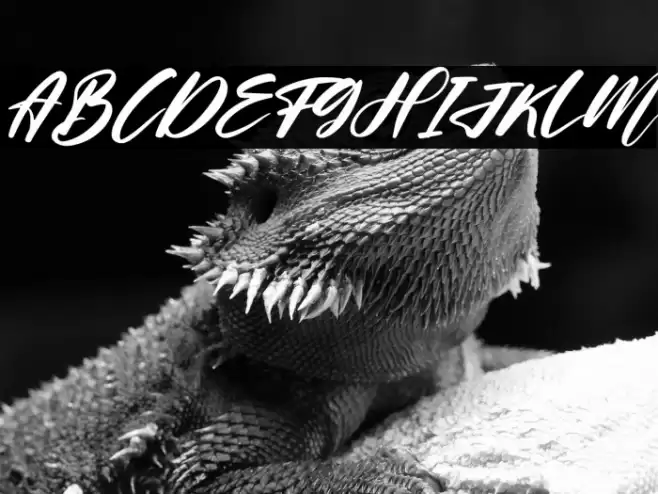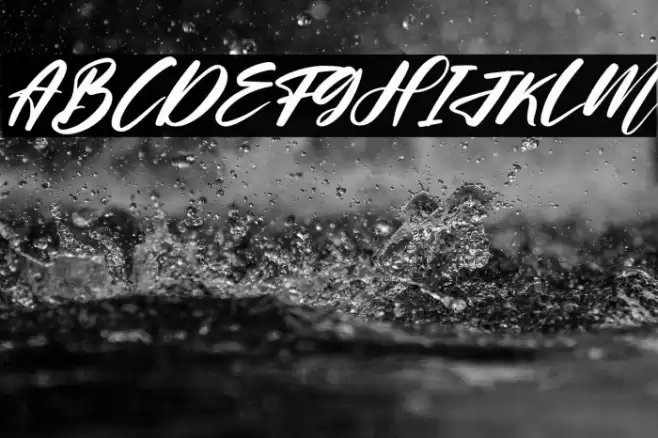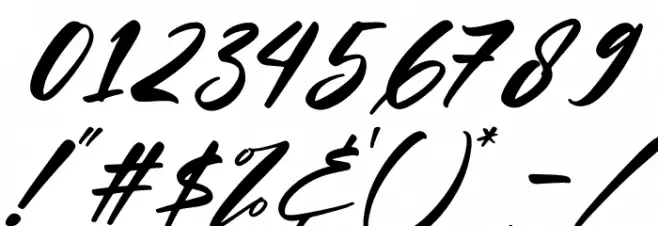
Helloria Abigail Italic Font
Helloria Abigail Italic Description
This font features a dynamic and flowing script style, characterized by its elegant and cursive letterforms. The strokes are bold and expressive, with a consistent slant that adds a sense of motion and fluidity. Each character is crafted with a sense of individuality, yet they harmonize beautifully when combined. The uppercase letters are particularly striking, with sweeping curves and dramatic flourishes, while the lowercase letters maintain a more subtle elegance. The numerals and special characters are designed to complement the overall aesthetic, ensuring versatility across various applications.
A bold and expressive script font with elegant, flowing letterforms from Uncategorized fonts.
- Font: Helloria Abigail Italic
- Proposed Projects: Ideal for wedding invitations, branding projects, greeting cards, and elegant packaging designs.
- Use Case: Logos, Invitations, Branding